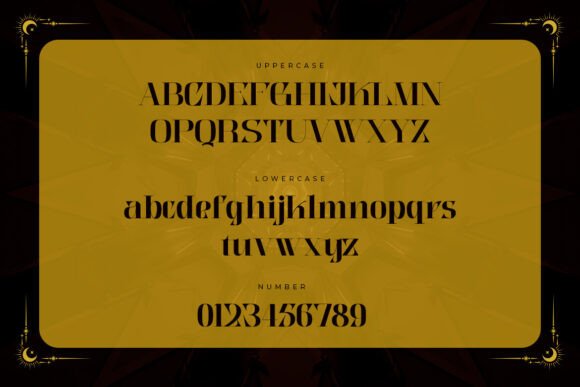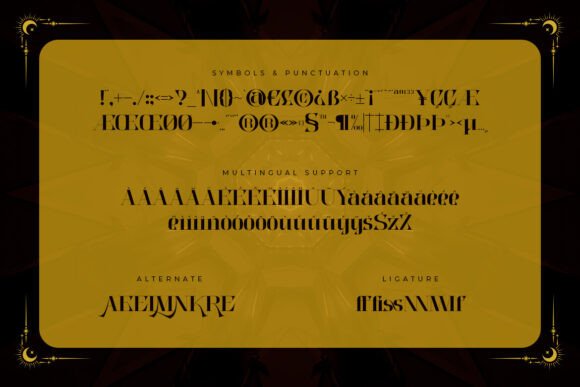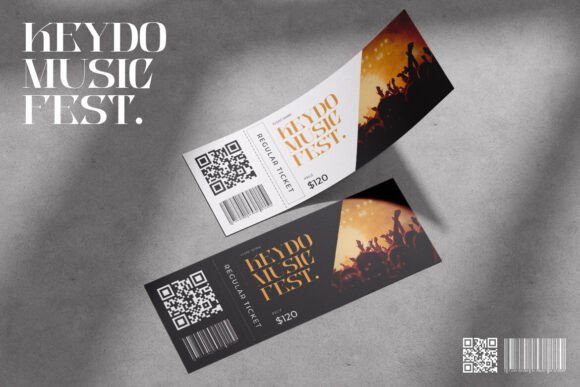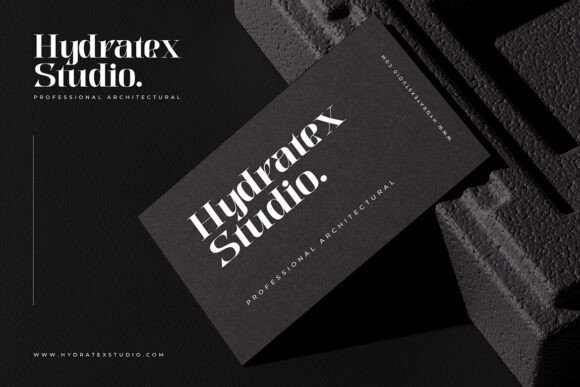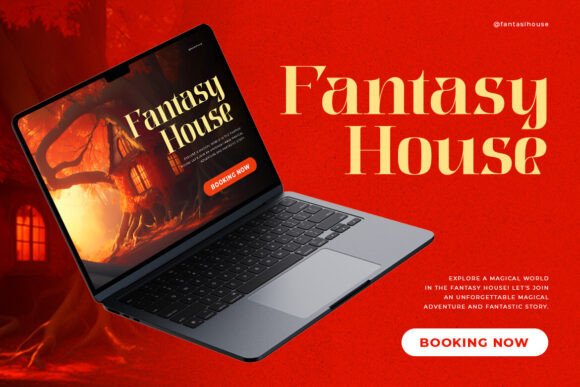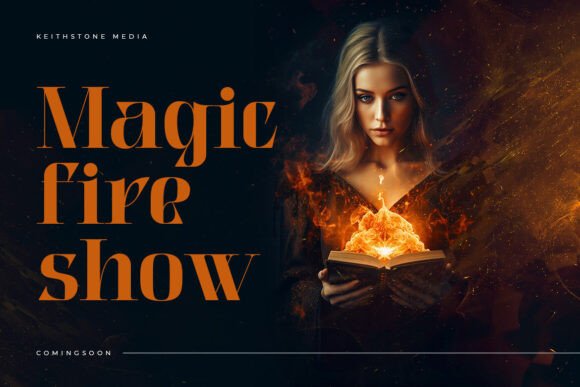
Introduction to Madlison Font
As a designer, there’s nothing quite like the thrill of discovering a new font that sparks your creativity. It’s the moment when a blank page transforms into a world of endless possibilities. For many of us, this moment is what drives us to create. And, for those who are about to experience it, we’re excited to introduce you to the enchanting Madlison Font.
This captivating display serif font is a game-changer for designers, offering a unique blend of elegance and mystique that’s sure to elevate your creative projects to new heights. Whether you’re working on a book jacket, invitation, or branding initiative, Madlison Font is the perfect design resource to add a touch of high-quality whimsy to your work.
With its refined serifs and elaborate features, this font is perfect for designers seeking to add an air of enchantment to their designs. And, the best part? It’s available for free download, making it an accessible and valuable addition to any designer’s toolkit.
Key Features of Madlison Font
- Unique, handcrafted design, setting it apart from other fonts in its class and adding a personal touch to any creative project.
Honest Review: Madlison Font
I recently had the chance to work with the Madlison Font, and I must say, it’s a fantastic addition to any design resource library. This high-quality font is perfect for creative projects that require a unique and modern touch.
One of the standout features of the Madlison Font is its versatility. It’s available in a range of styles and weights, making it easy to find the perfect fit for your project. The font also includes a transparent background option, which is a huge bonus for designers who want to achieve a seamless look.
- High-quality design that’s perfect for modern projects
- Available in a range of styles and weights
- Includes a transparent background option
- Some users may find the font to be a bit too modern or trendy
Overall, I’m thoroughly impressed with the Madlison Font. It’s a great resource for designers who want to add a touch of elegance and sophistication to their projects. With its high-quality design and transparent background option, it’s definitely worth considering for your next creative project.
The Madlison Font is a high-quality design resource perfect for any creative project. Its unique style and versatility make it an excellent choice for various applications.
Tips for Getting the Most Out of Madlison Font
Use the Madlison Font with a transparent background for a clean and minimalist look. Experiment with different font sizes and styles to achieve the desired effect.
The Madlison Font is perfect for:
- Print design and publishing